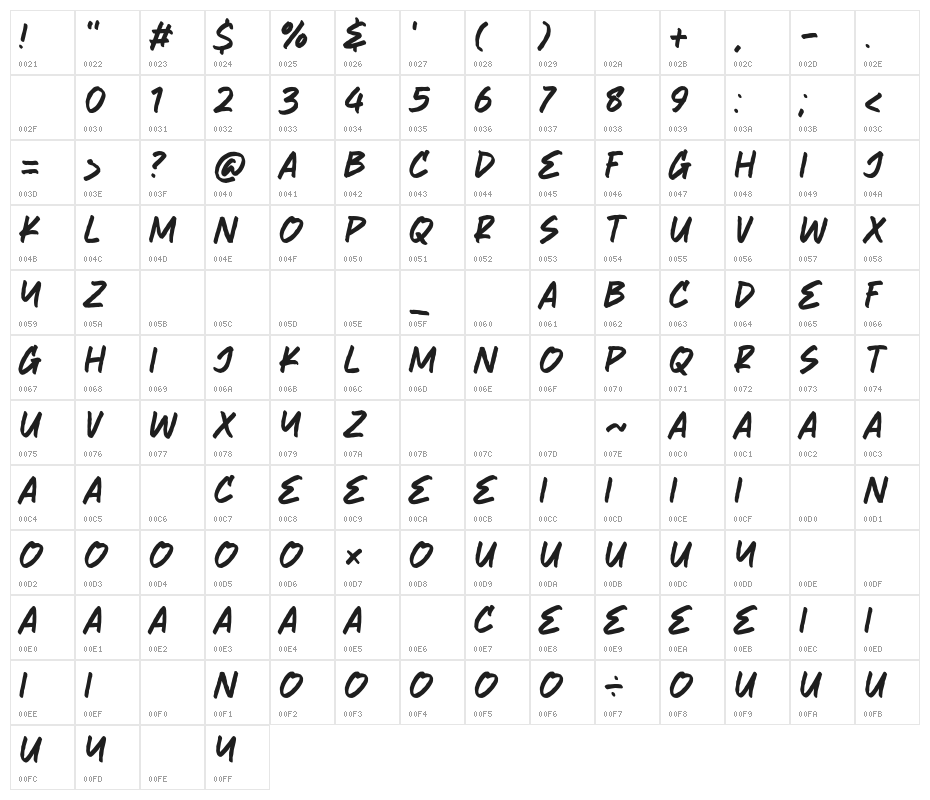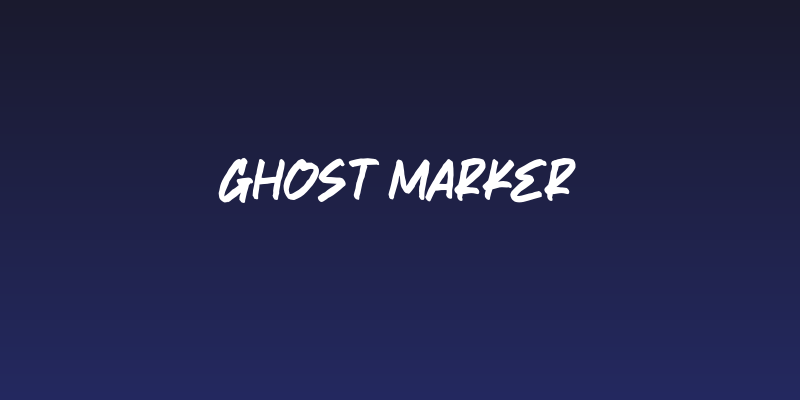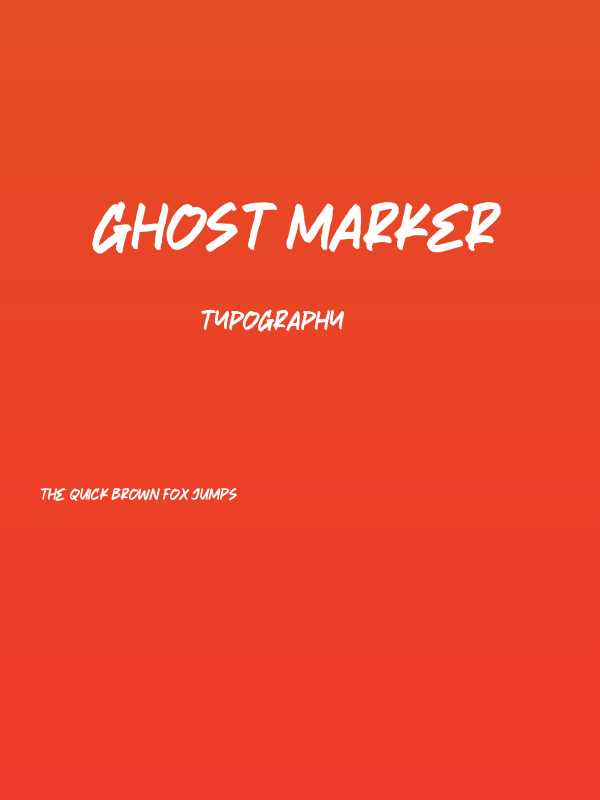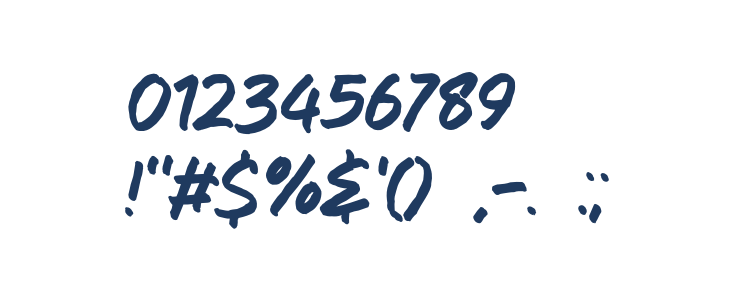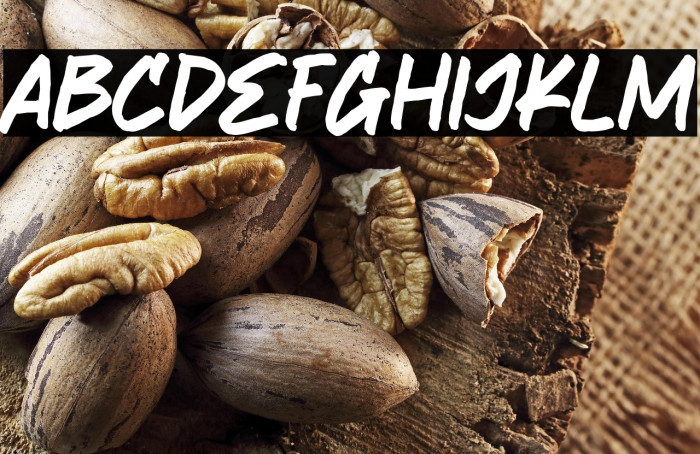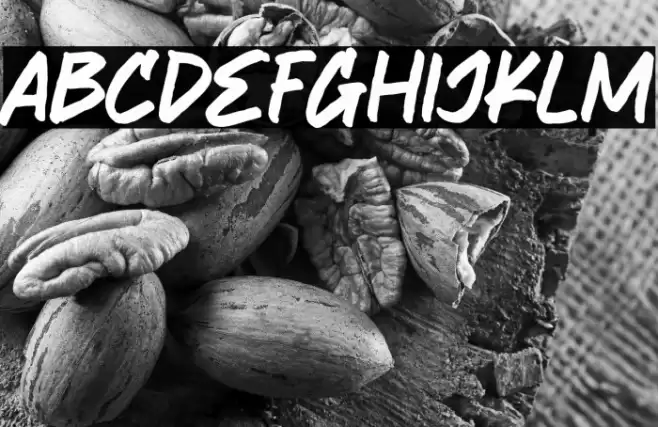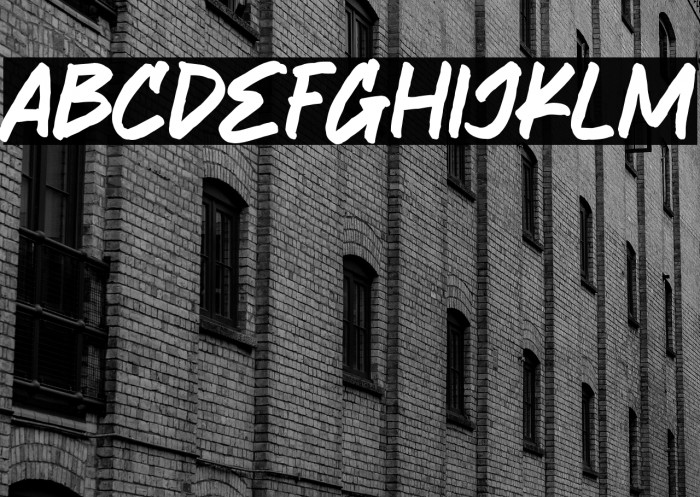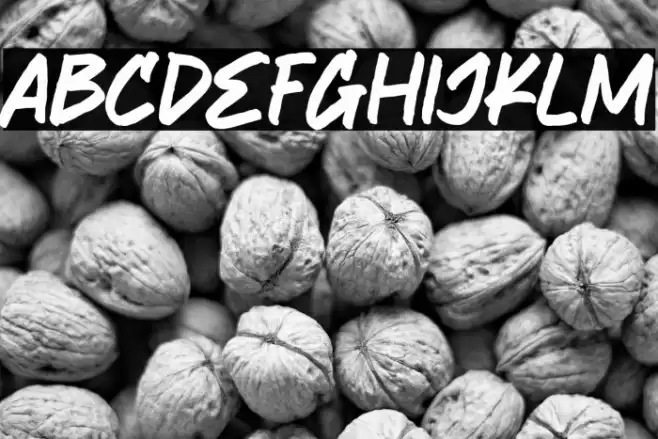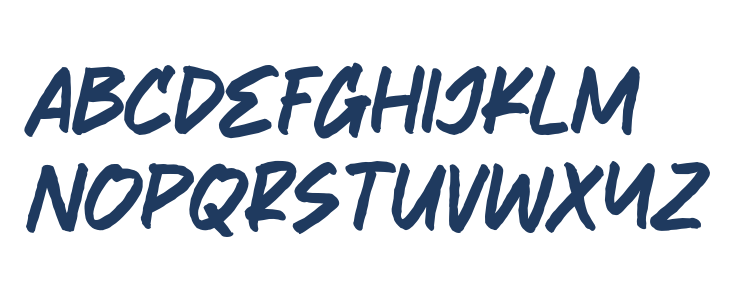
Ghost Marker Font
Ghost Marker Description
This font exudes a bold, energetic style reminiscent of hand-drawn marker strokes. The characters are thick and slightly slanted, giving a dynamic and informal appearance. The uppercase and lowercase letters maintain a consistent flow, with rounded edges and a playful, casual vibe. The numbers and special characters follow the same aesthetic, ensuring uniformity across all glyphs. This font is ideal for projects that require a personal touch, such as posters, invitations, or branding that aims to convey a sense of creativity and approachability.
| Overall Style | Casual, Energetic |
| Use Case | Headlines, Posters, Branding |
| Proposed Projects | Perfect for posters, creative branding, invitations, and any project needing a personal, energetic touch. |